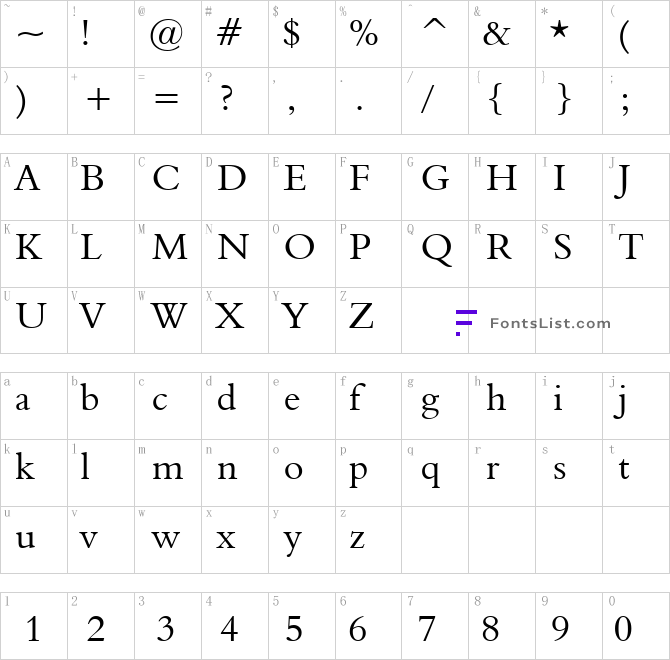
- Font Name:Aldine401 BT
- Subfamily:Roman
- Subfamily:Aldine 401
- Full Name:Aldine 401 BT
Aldine-401-BT.ttf is a very beautiful artistic font, Aldine-401-BT.ttf is widely used in the design and printing of various books and pictures,Aldine-401-BT.ttf has a strong visual impact,Aldine-401-BT.ttf is a commonly used font in newspapers, magazines and books, and is used in posters, e-commerce Poster design, store design, logo design, font design and other fields.Aldine-401-BT.